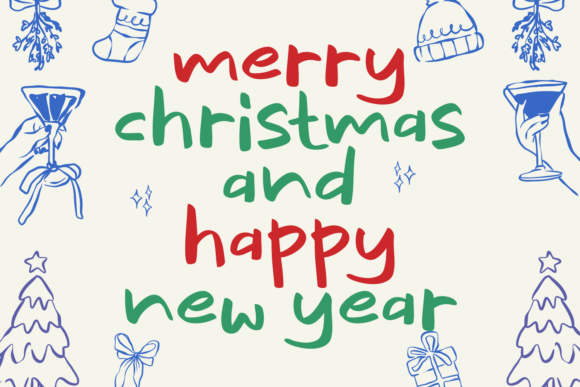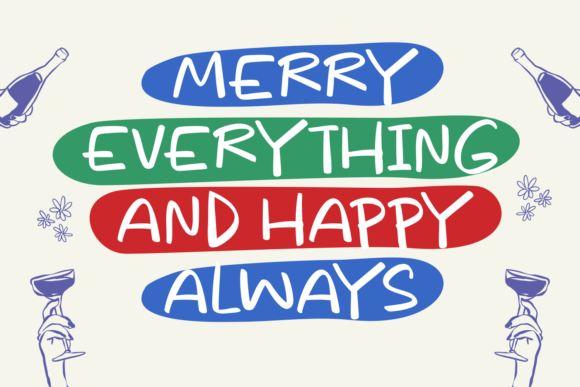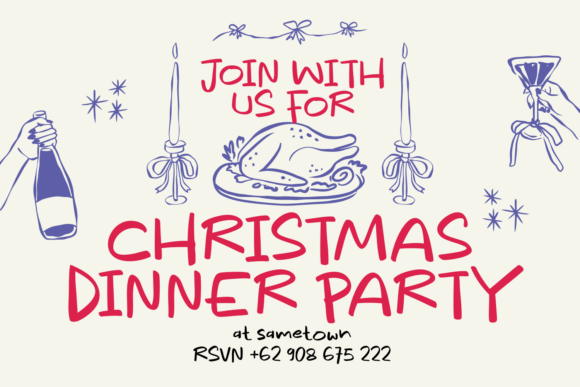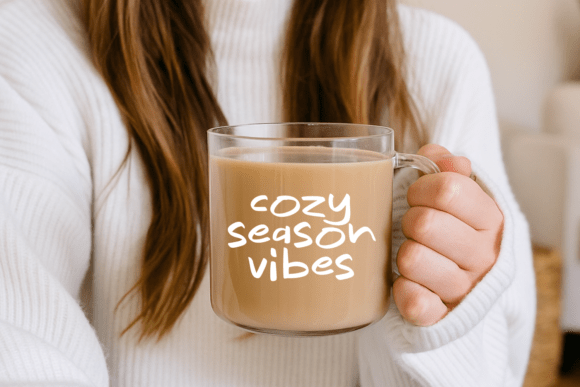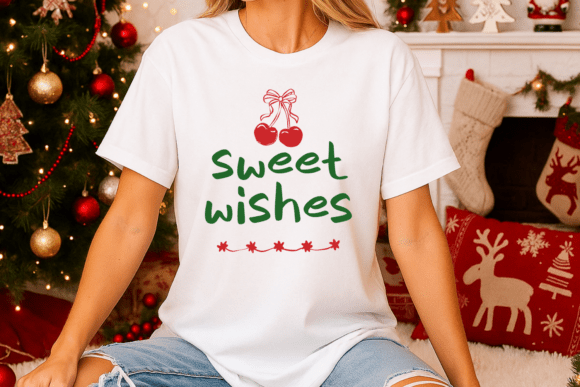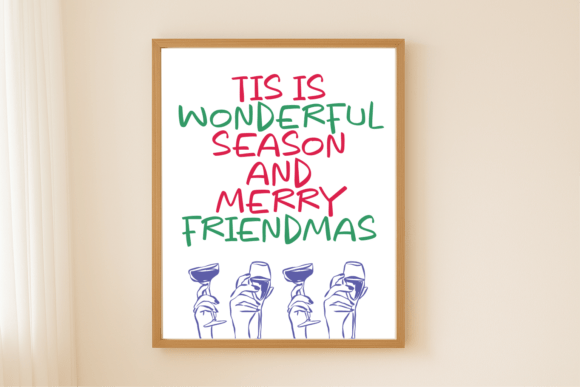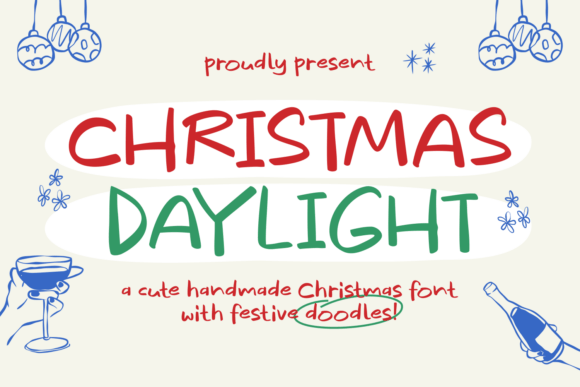
Introducing Christmas Daylight: The Perfect Hand-Drawn Font for Your Holiday Designs
Are you looking for a font that captures the cheerful and cozy spirit of the holiday season? Look no further than Christmas Daylight, a cute and natural hand-drawn handwriting font that’s perfect for adding a personal touch to your Christmas designs. In this article, we’ll take a closer look at Christmas Daylight and explore how you can use it to create beautiful and festive designs for your holiday projects.
A Cute and Natural Hand-Drawn Font
Christmas Daylight is a hand-drawn font that’s been carefully crafted to bring a cheerful holiday spirit to your designs. Its playful and casual letterforms are perfect for creating a cozy and inviting atmosphere, making it ideal for use in Christmas cards, invitations, posters, packaging, social media posts, and DIY projects.
One of the standout features of Christmas Daylight is its natural, hand-drawn feel. Unlike generic fonts that can look stiff and formal, Christmas Daylight has a warm and welcoming personality that’s perfect for the holiday season. Its unique letterforms and subtle imperfections give it a charming, handmade quality that’s sure to delight.
Festive Doodles to Enhance Your Designs
But Christmas Daylight is more than just a font – it’s also a collection of festive doodles that can be used to enhance your designs. The font comes with a range of fun and playful doodles, including ornaments, candles, ribbons, and holiday treats. These doodles can be used to add an extra touch of personality to your designs, making them perfect for use in holiday cards, posters, and social media posts.
The doodles are also a great way to add visual interest to your designs and create a more dynamic layout. You can use them to break up blocks of text, highlight important information, or simply add a bit of festive flair to your design.
Perfect for a Range of Holiday Projects
Christmas Daylight is a versatile font that can be used for a wide range of holiday projects. Here are just a few ideas to get you started:
- Christmas cards: Use Christmas Daylight to create beautiful and personalized Christmas cards for your friends and family.
- Invitations: Create festive and fun invitations for your holiday parties and events.
- Posters: Design eye-catching posters to promote your holiday sales and events.
- Packaging: Add a personal touch to your holiday packaging with Christmas Daylight.
- Social media posts: Use Christmas Daylight to create festive and engaging social media posts that will delight your followers.
- DIY projects: Use Christmas Daylight to add a personal touch to your holiday DIY projects, such as decorations, gift tags, and more.
Why Choose Christmas Daylight?
So why choose Christmas Daylight for your holiday designs? Here are just a few reasons:
- Unique and personalized: Christmas Daylight is a unique and personalized font that’s sure to stand out from the crowd.
- Easy to use: The font is easy to use and comes with a range of festive doodles to enhance your designs.
- Versatile: Christmas Daylight can be used for a wide range of holiday projects, from Christmas cards to social media posts.
- Cozy and inviting: The font has a warm and welcoming personality that’s perfect for the holiday season.
| Font Name | Christmas Daylight Font |
| Author | Dreamink (7ntypes) |
If you’re looking for a font that captures the cheerful and cozy spirit of the holiday season, look no further than Christmas Daylight. This cute and natural hand-drawn handwriting font is perfect for adding a personal touch to your holiday designs, and its festive doodles are a great way to add visual interest and personality to your projects. Whether you’re a designer, crafter, or simply someone who loves the holiday season, Christmas Daylight is the perfect choice for your holiday designs.